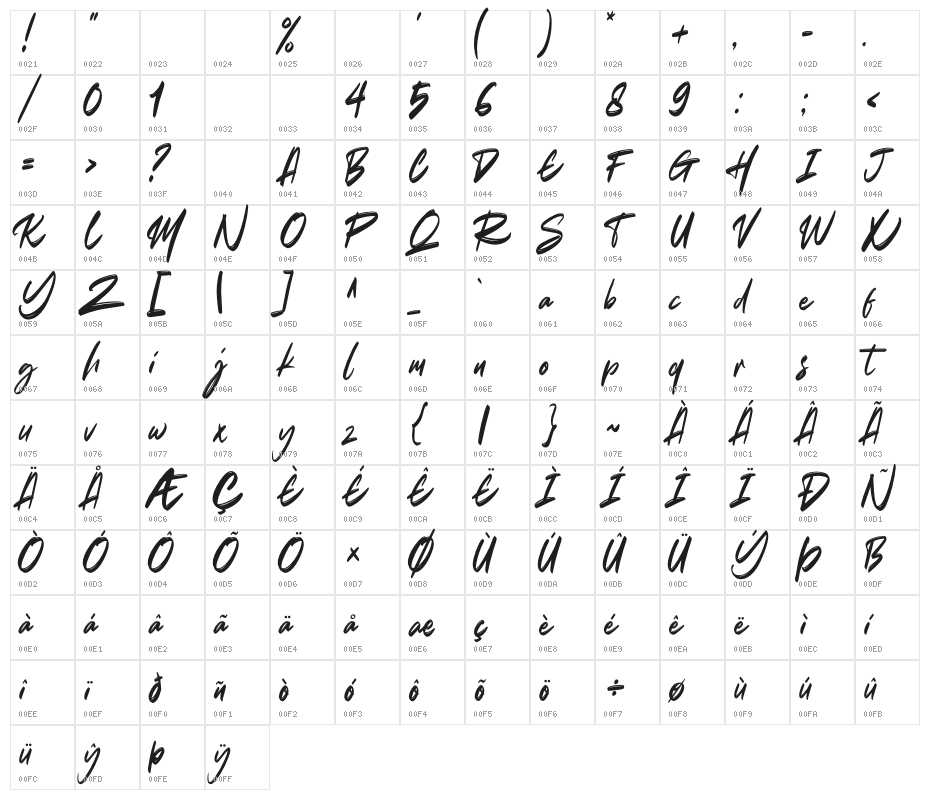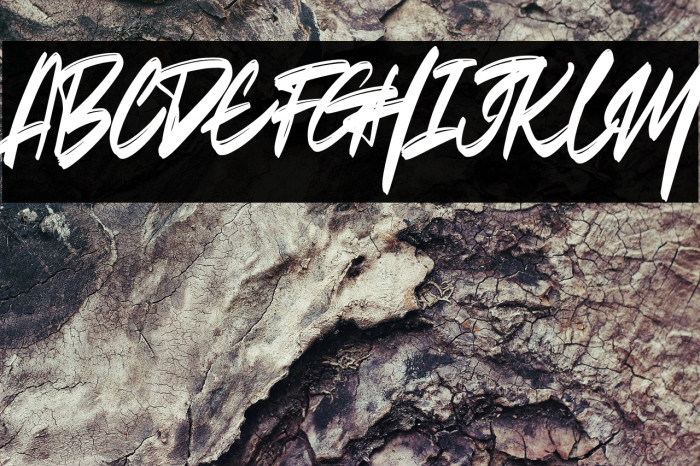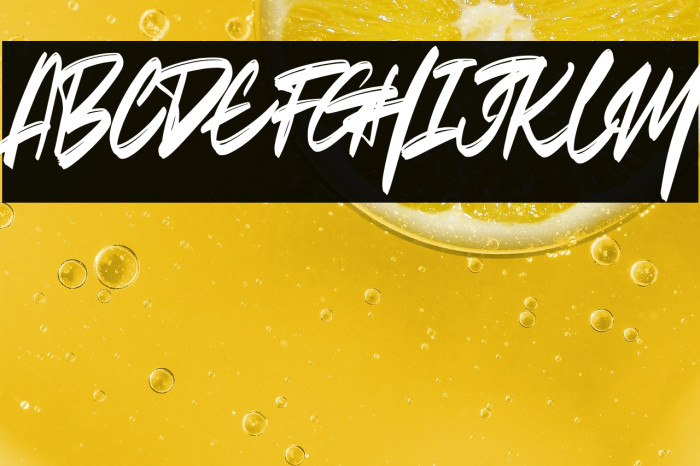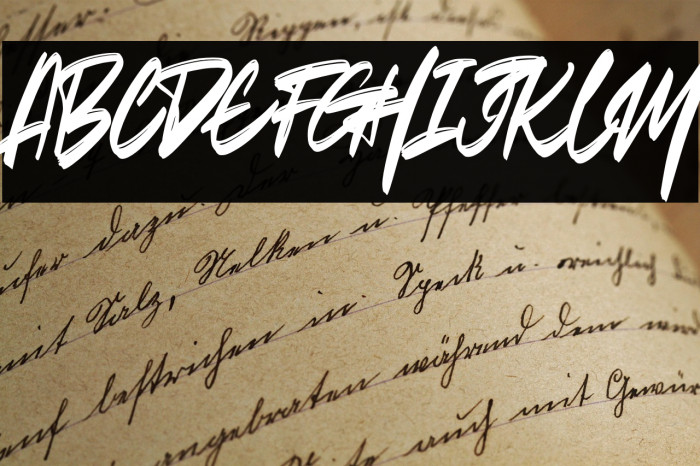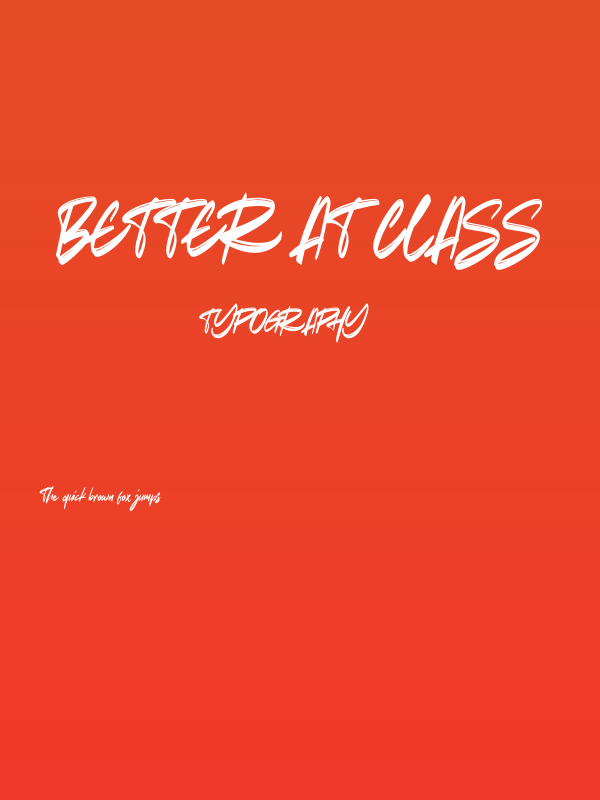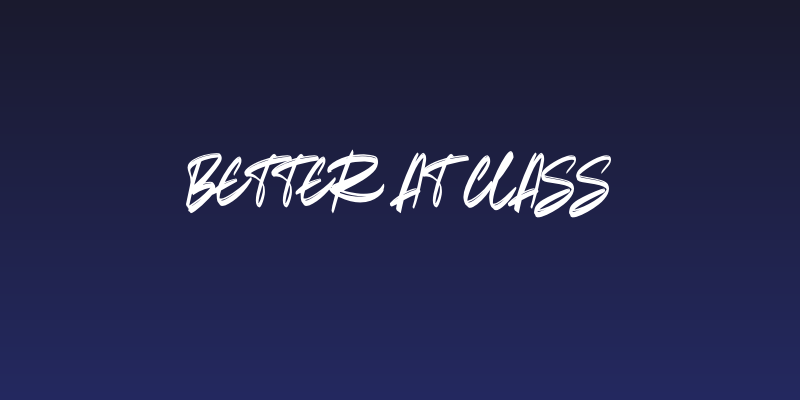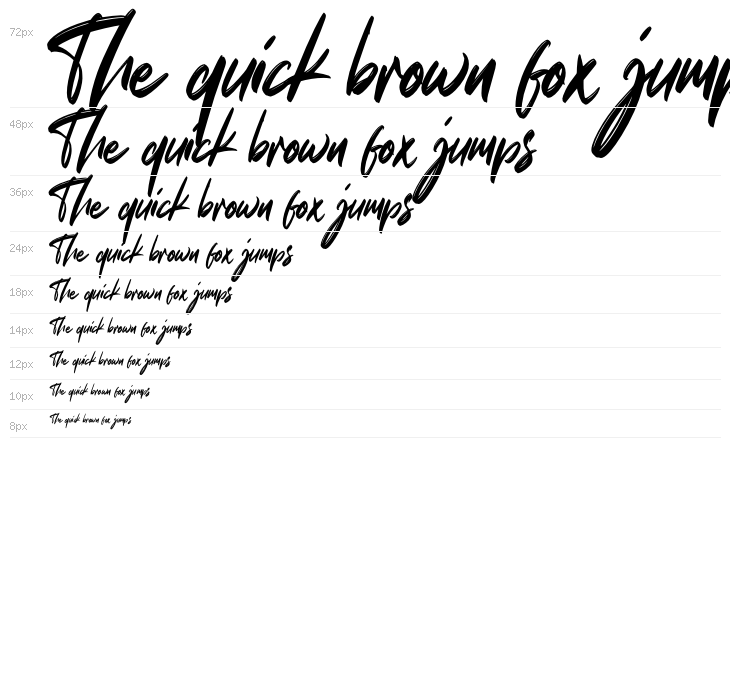
Better at Class Font
Better at Class Description
This font exhibits a dynamic and energetic handwritten style, characterized by bold, sweeping strokes and a sense of fluidity. The uppercase letters are particularly striking, with a sense of motion and flair that suggests a personal, expressive touch. Lowercase letters maintain this fluidity, with some letters featuring distinctive loops and curves that add to the overall aesthetic. The numerals and special characters are equally expressive, maintaining the same bold and dynamic quality. This font is ideal for projects that require a personal, artistic touch, such as invitations, posters, or branding materials that aim to convey creativity and individuality.
| Proposed Projects | Ideal for creative projects like invitations, posters, and branding materials that require a personal touch. |